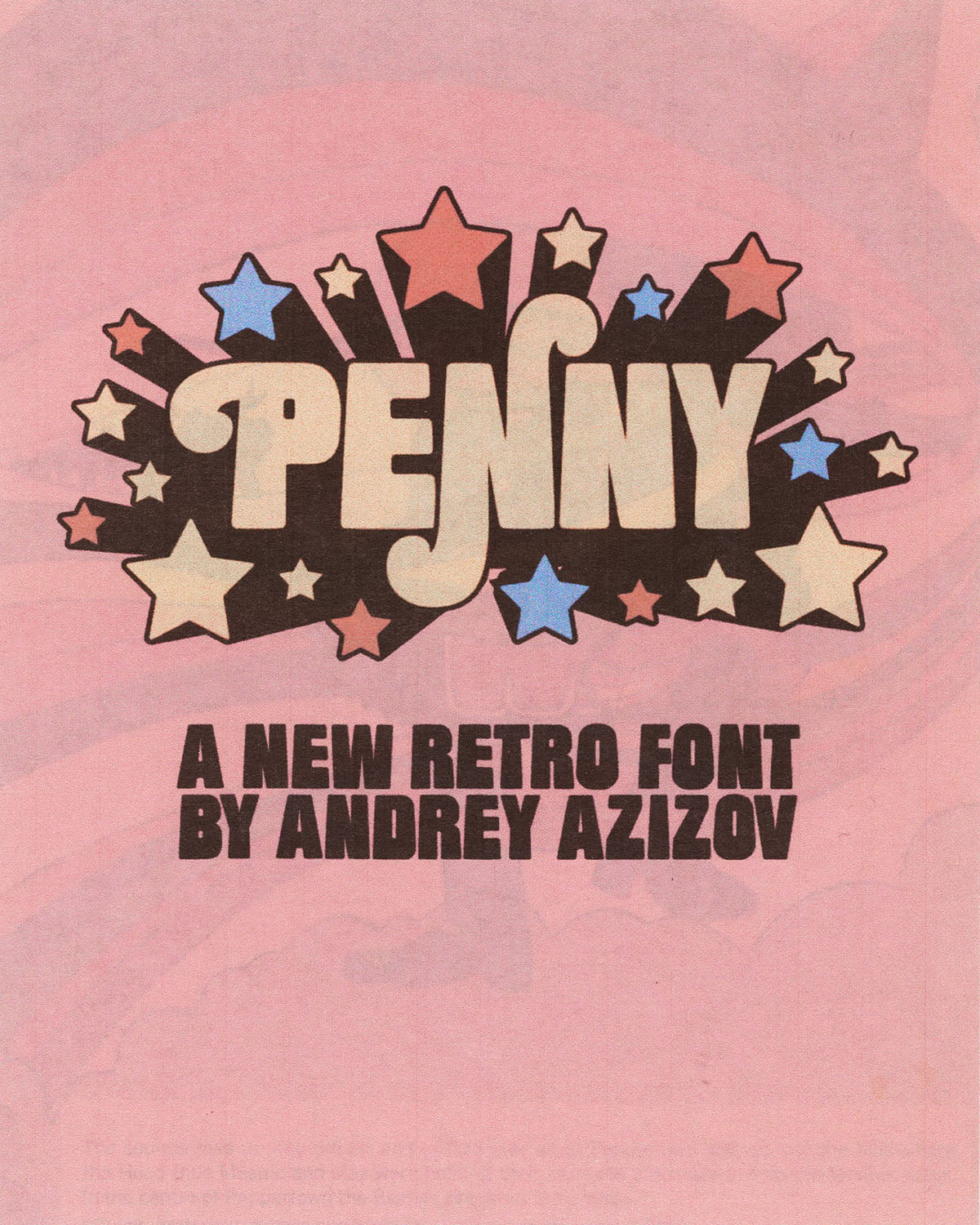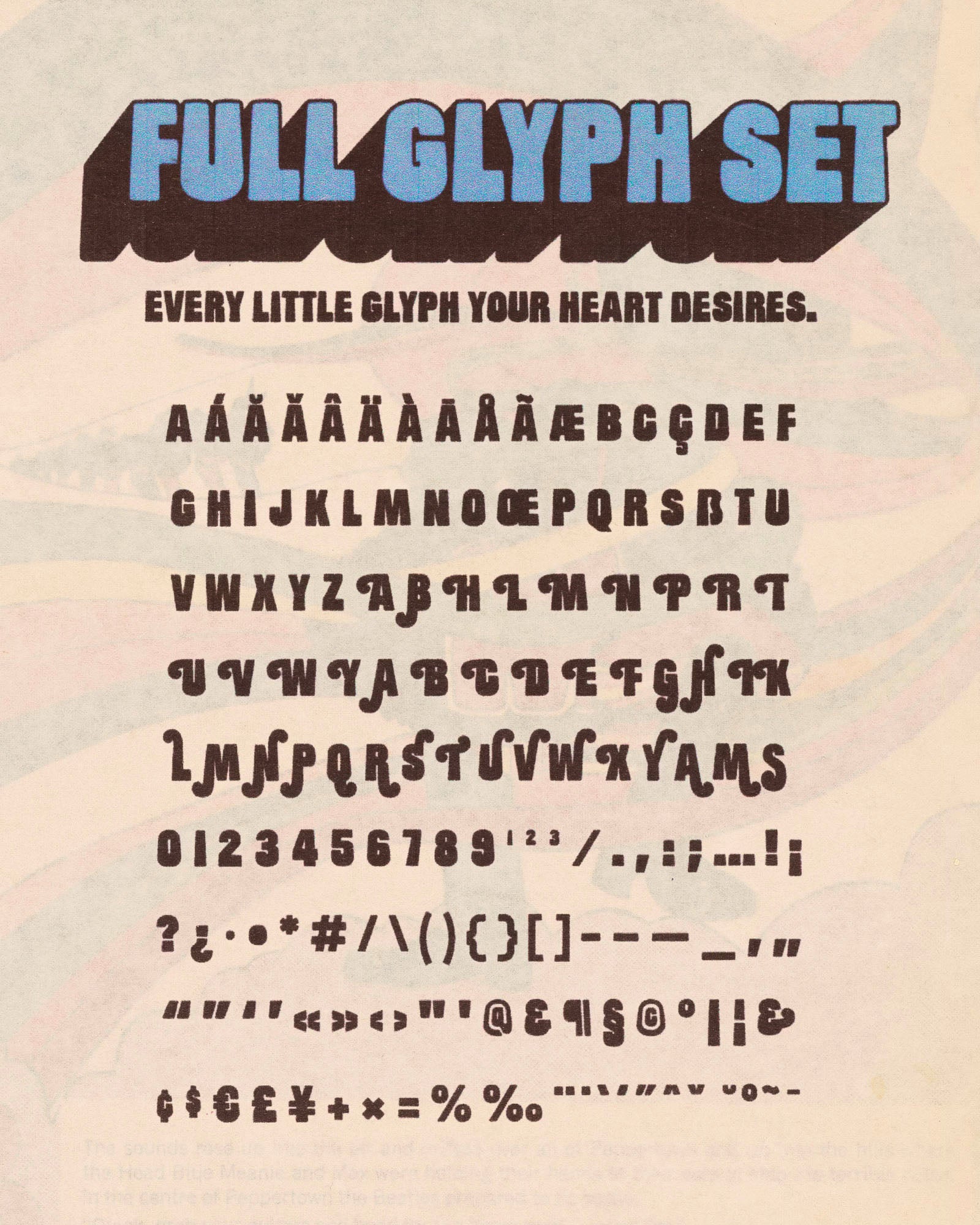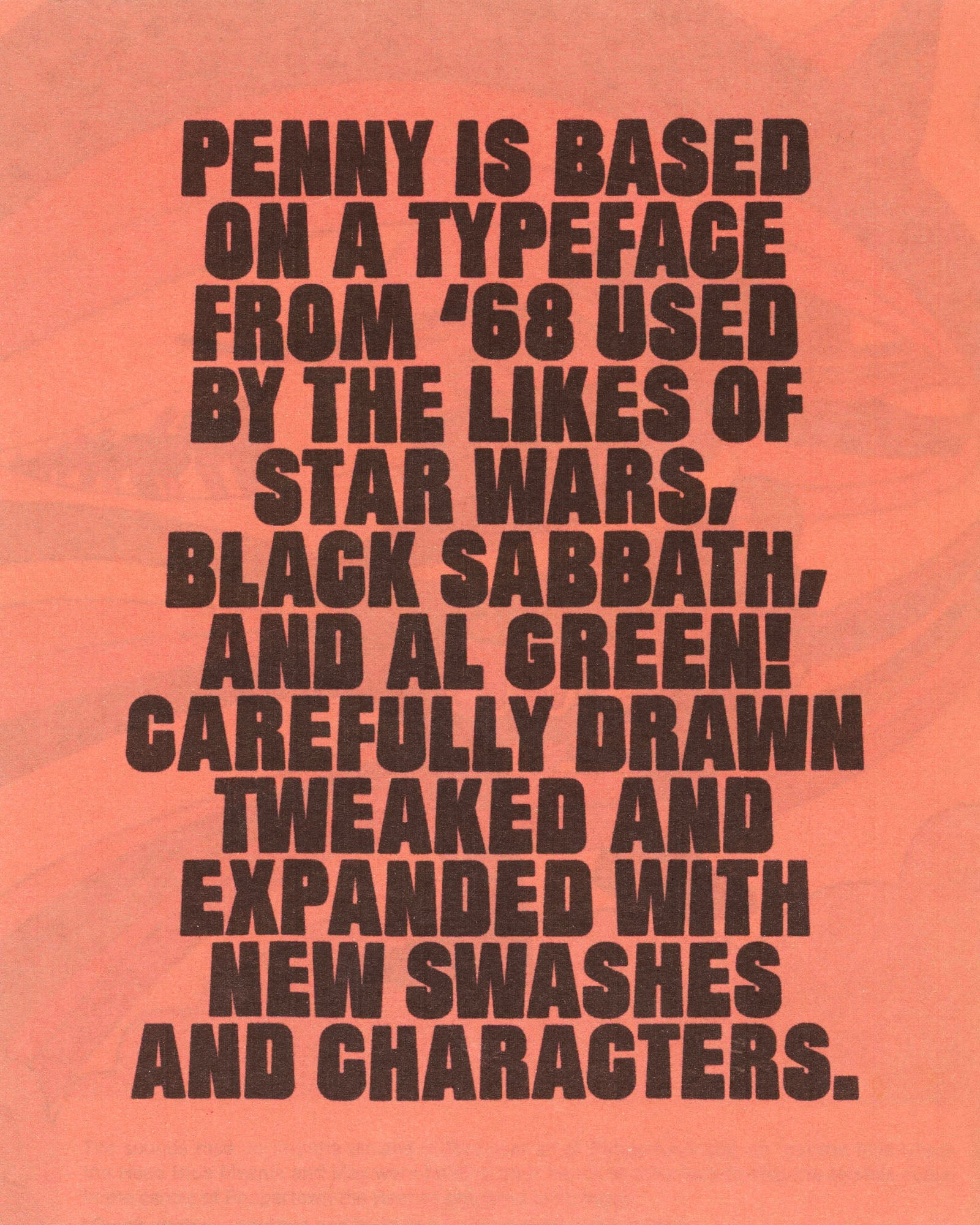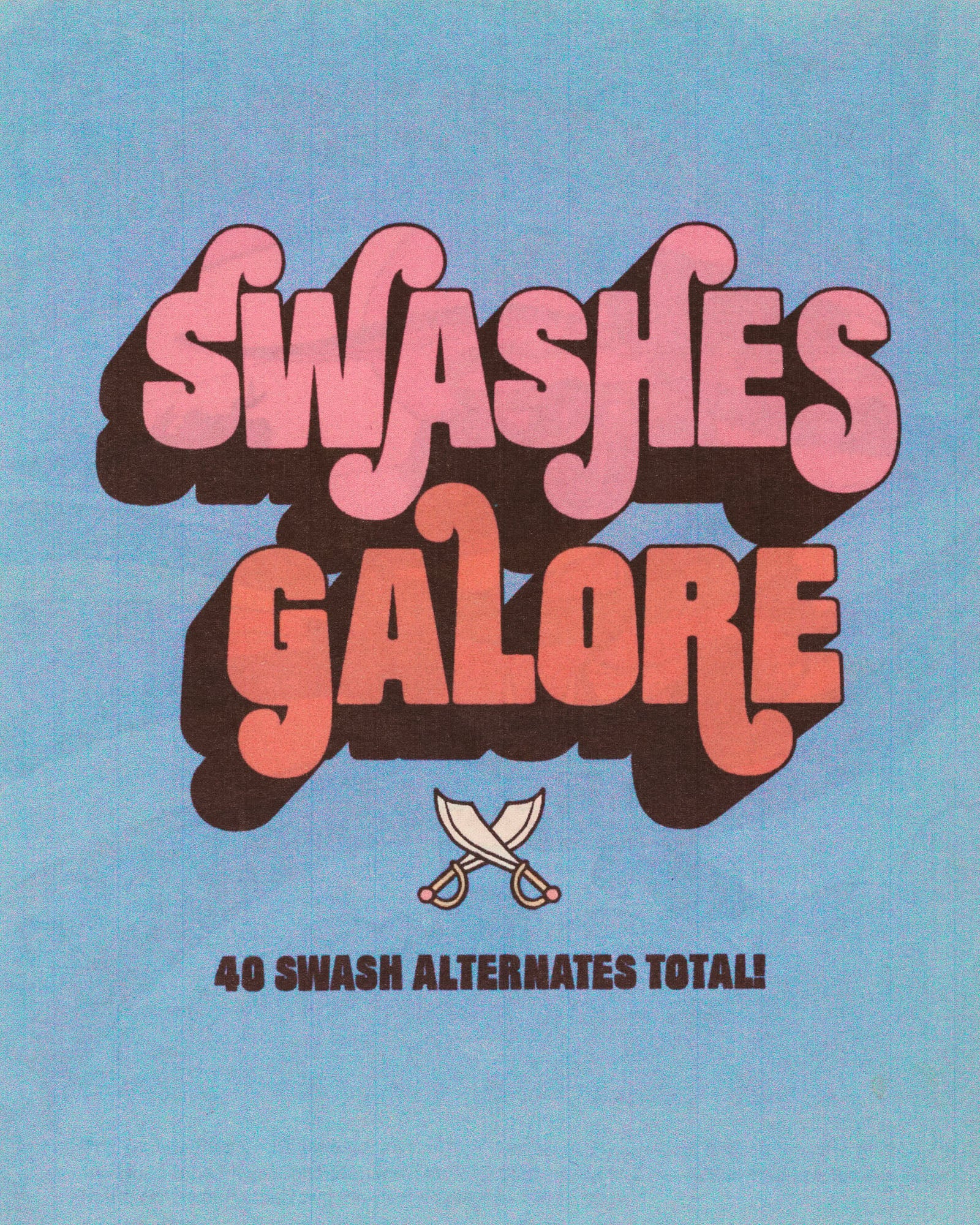
AA Penny
My first font! Penny is a charismatic and bold font inspired by the 70s. Featuring 40 swash alternates for extra personality and a full glyph set for maximum usability. Carefully drawn and tweaked to perfection, it’s perfect for flyers, posters, video titles and much more for an added retro flair. Tag @andreyazizov if you use it, I’d love to see what you do with it and will be sharing my faves.